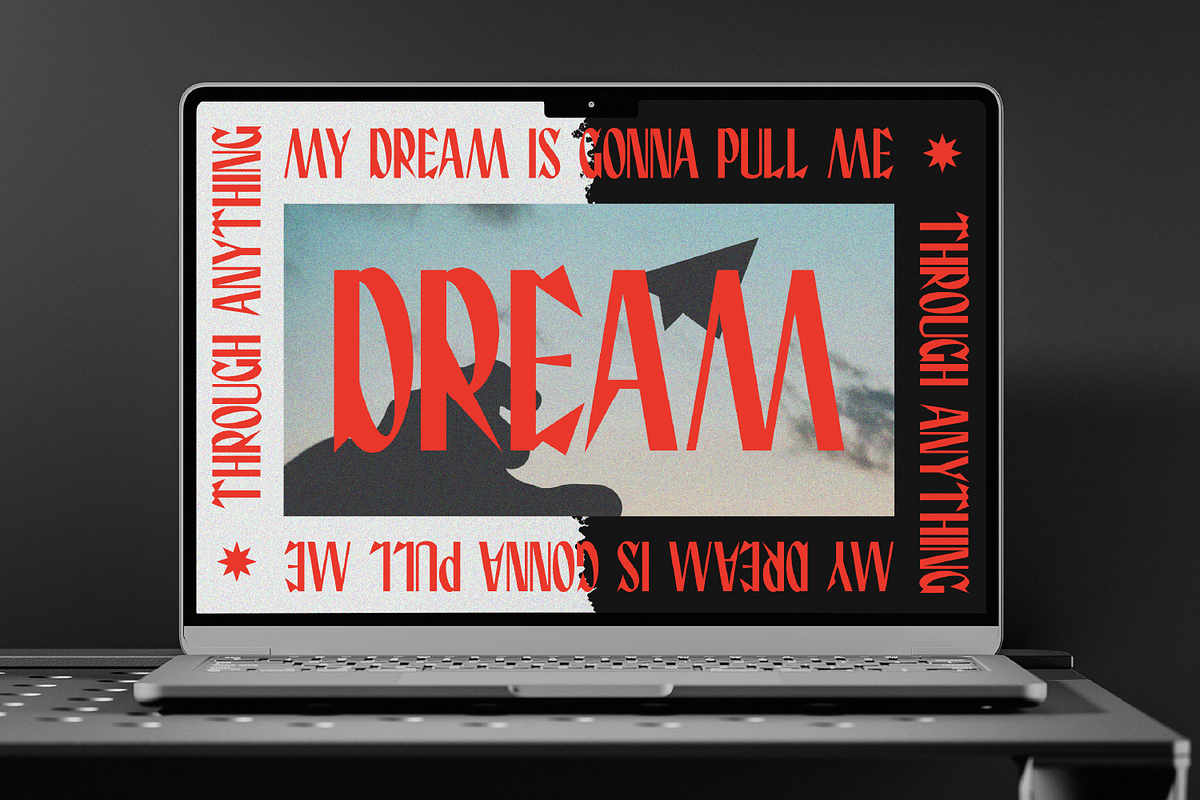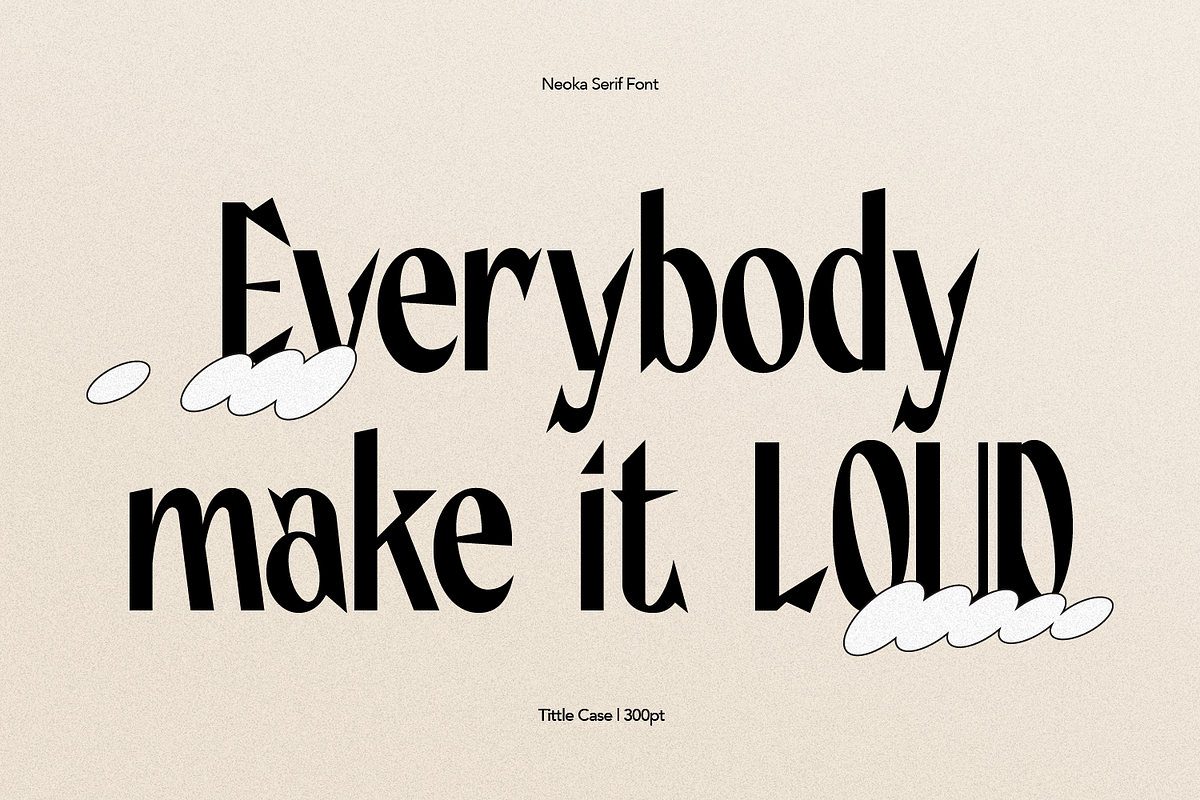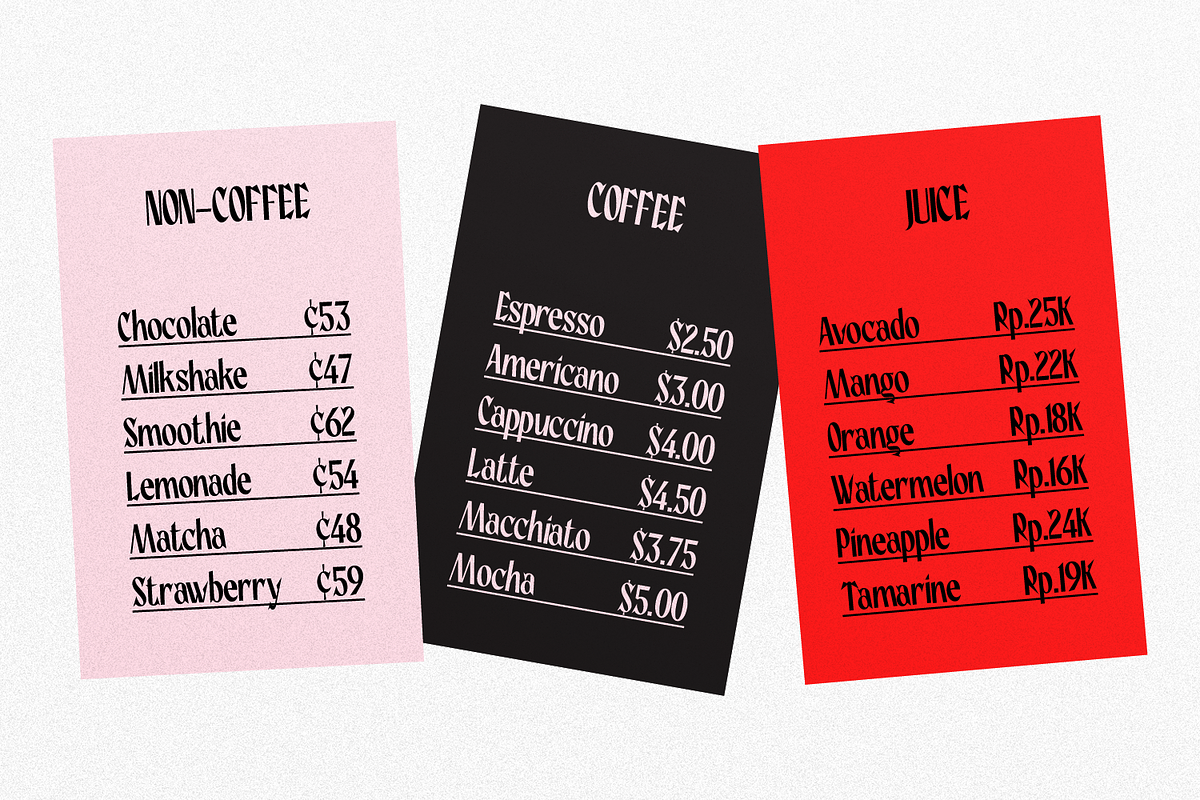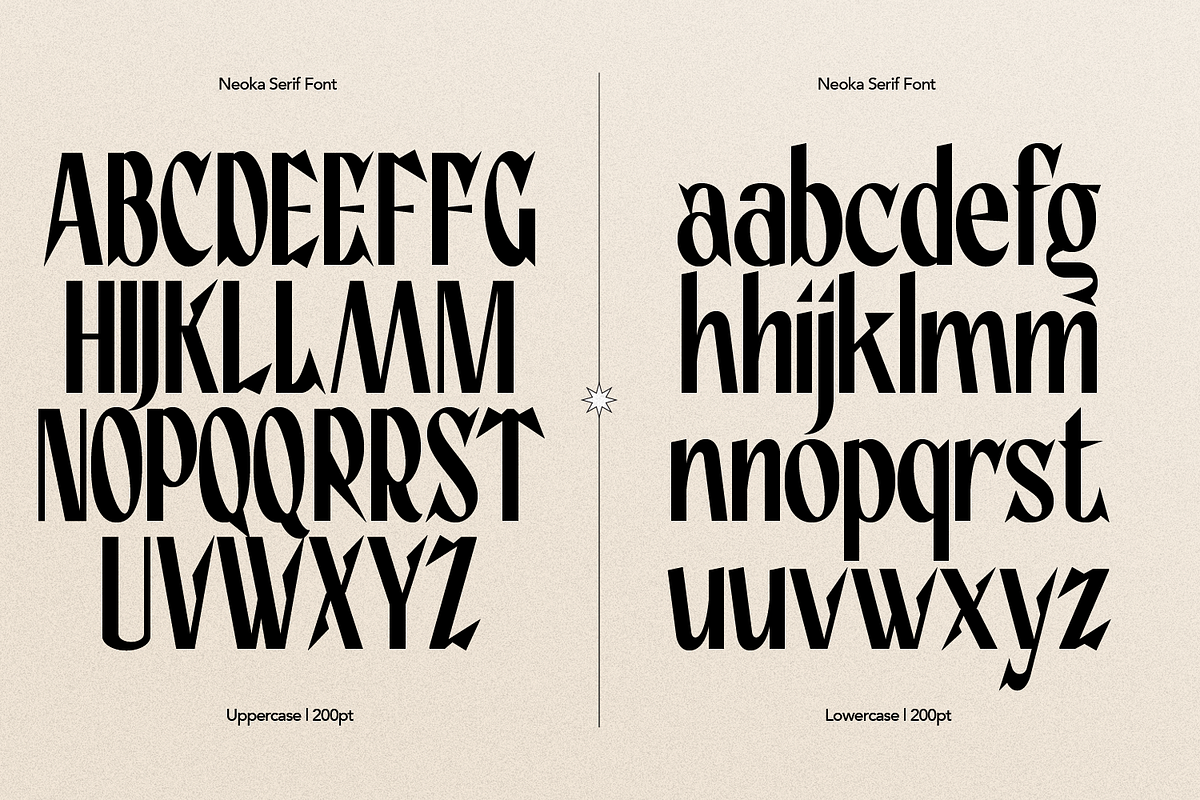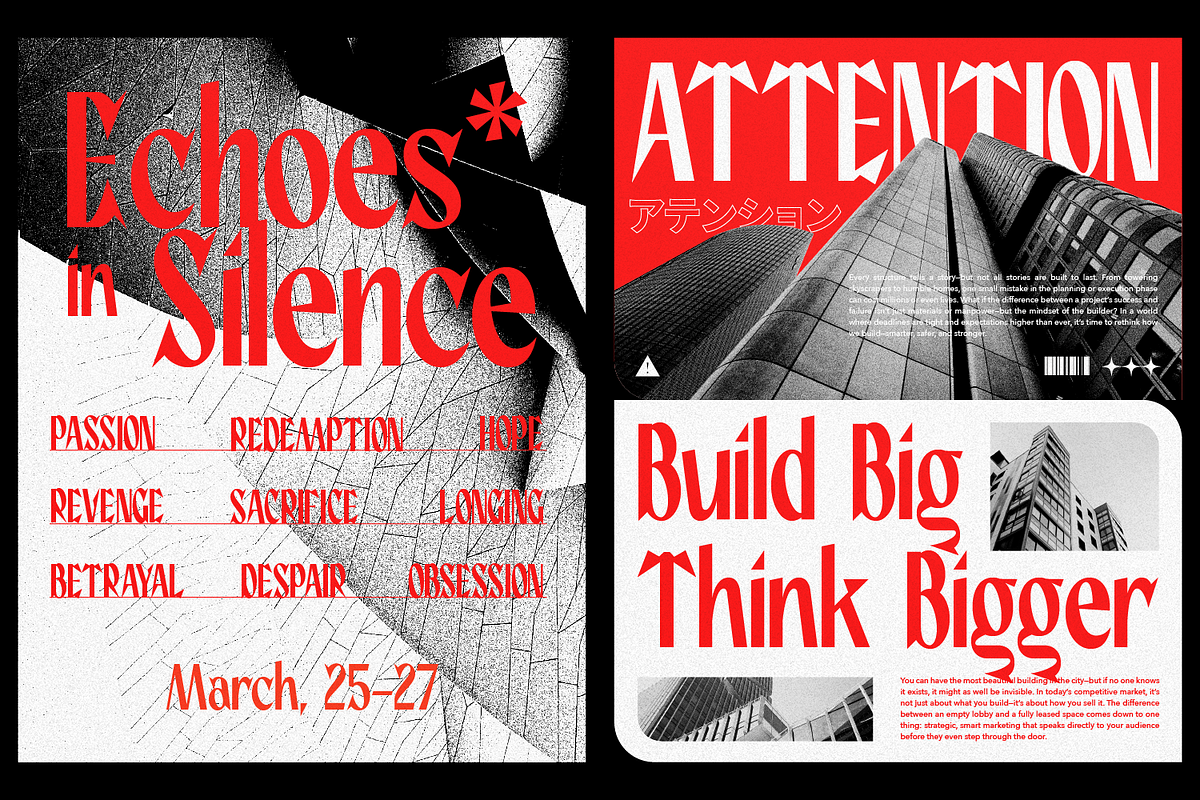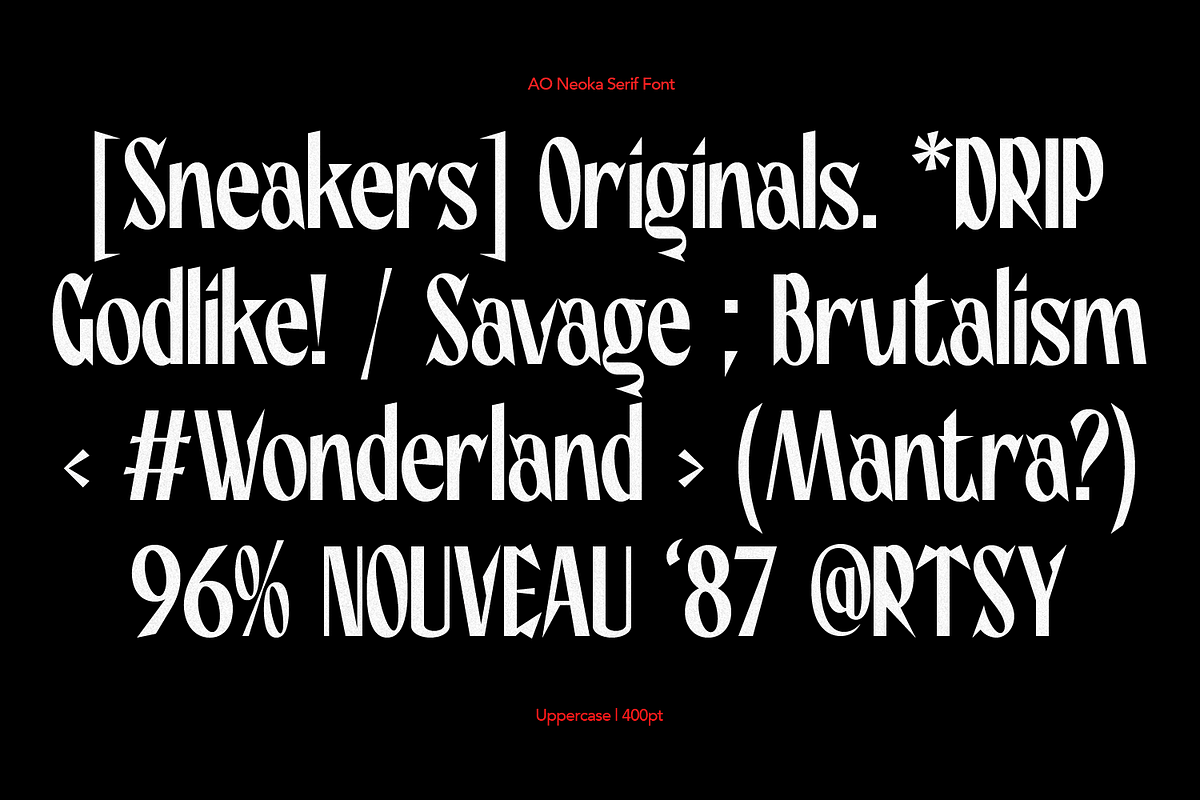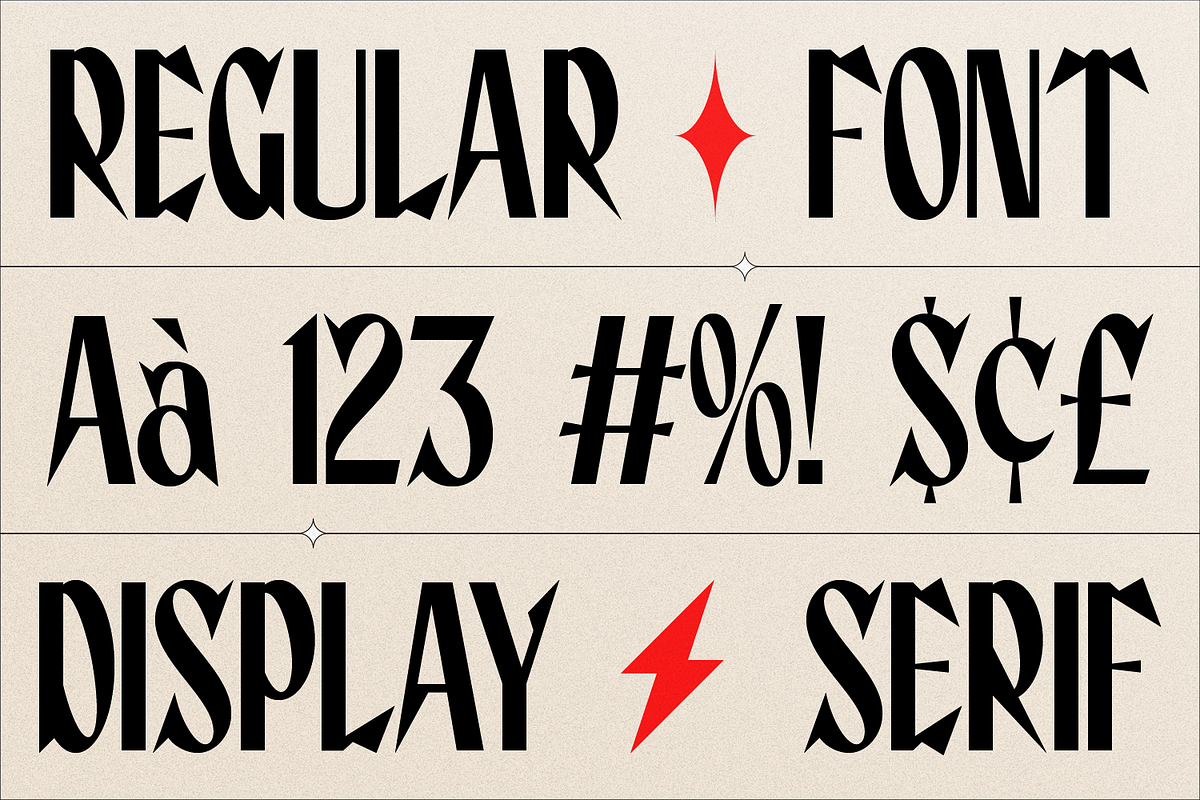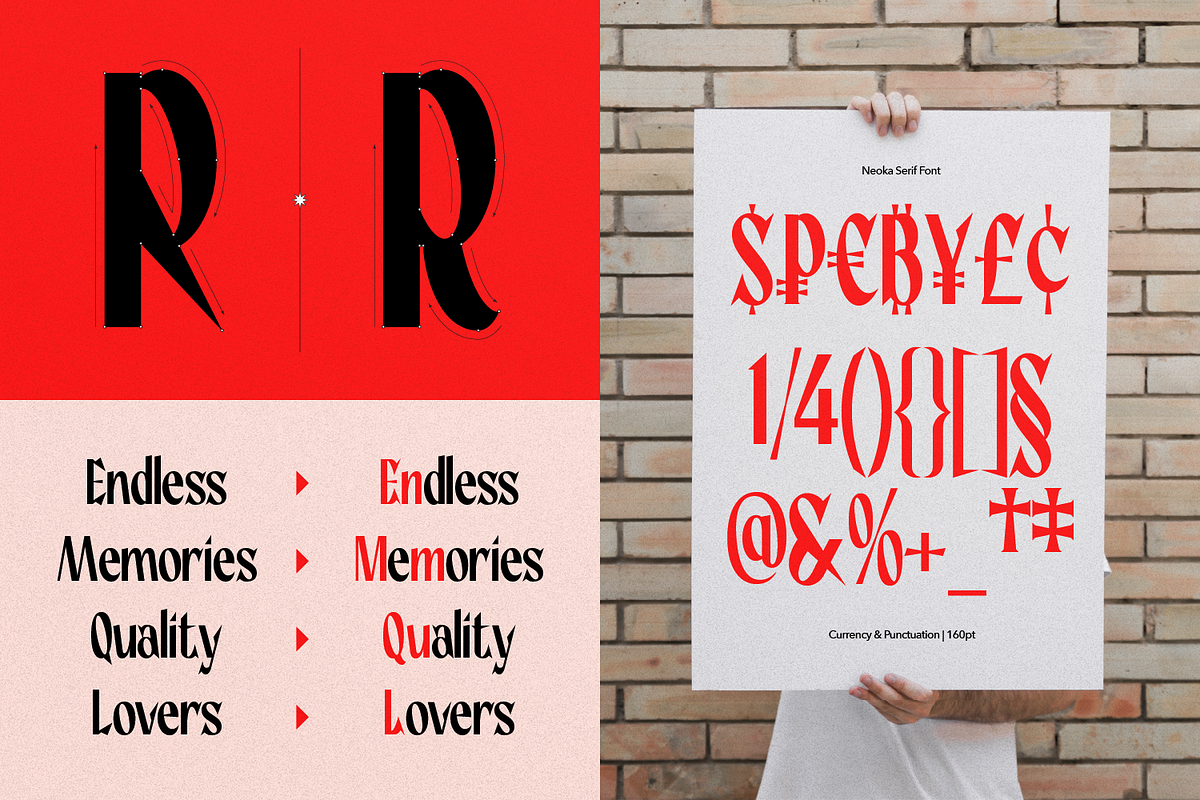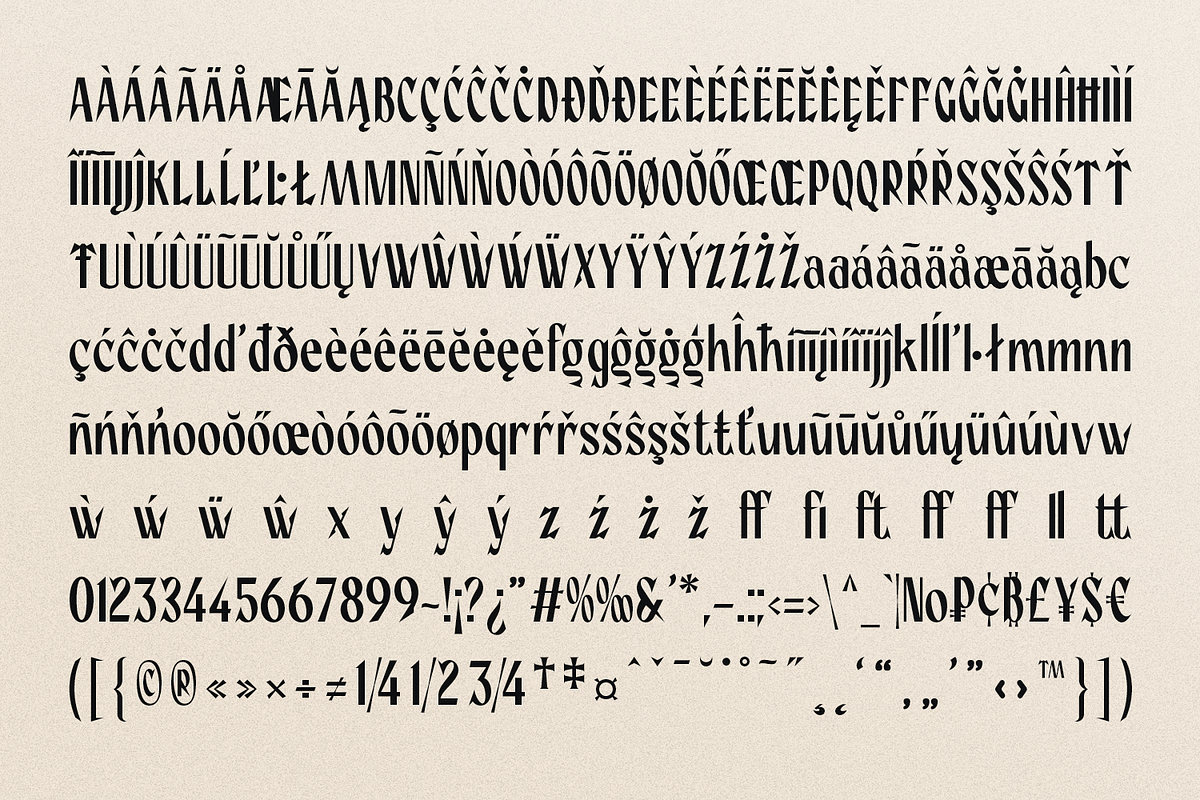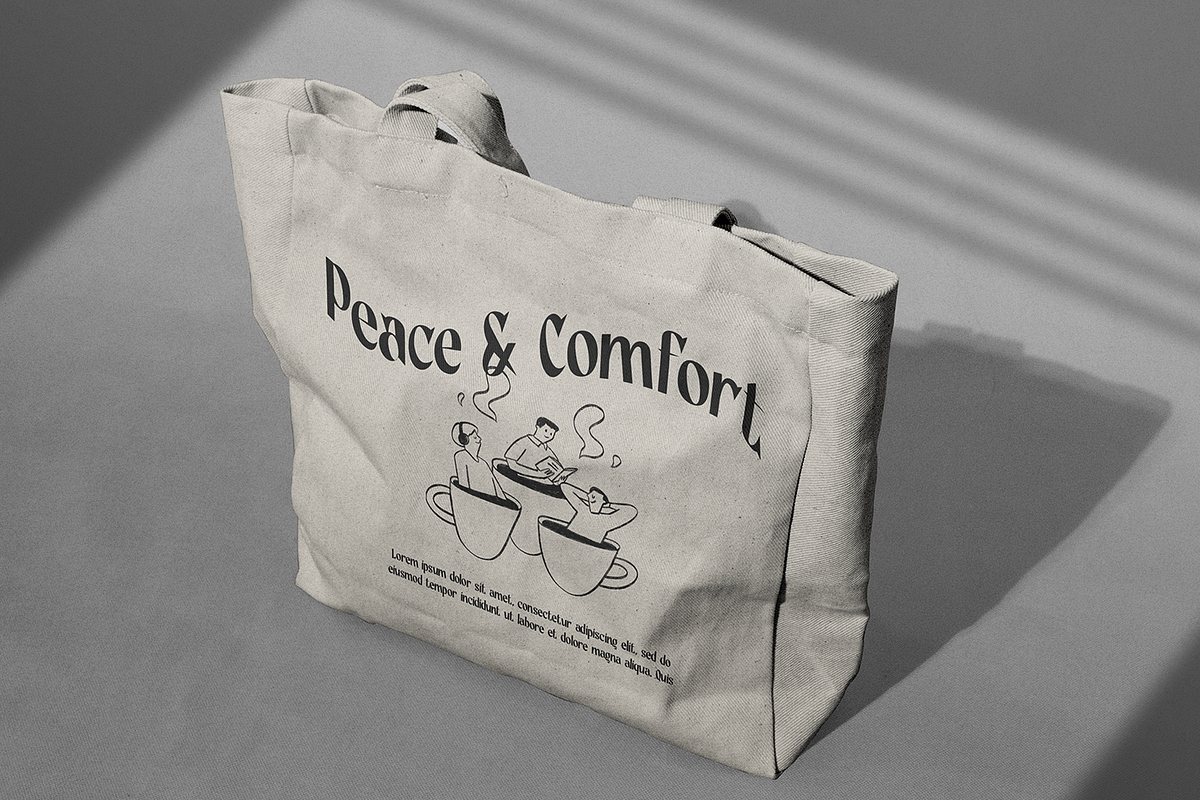
Neoka - Sans Serif Display
NEOKA is a striking and modern Sans-Serif Display Font designed to command attention. Crafted by Typetemp Studio, NEOKA is defined by its experimental, high-contrast letterforms featuring dramatic angles and unconventional cuts. It confidently pushes the boundaries of traditional typography, making it an excellent tool for designers who want to create bold, unforgettable visual statements.
The heavy, condensed vertical weight and unexpected negative space give NEOKA a strong, contemporary, and slightly avant-garde appeal.
- Full multilingual character set
- OpenType features such as ligatures and alternates